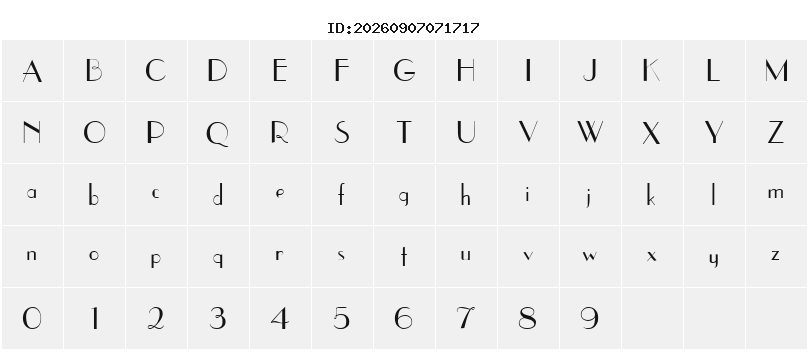
UppEa Preview
• Font Name: UppEa
• Font ID: Altsys Metamorphosis:UppEa Regular
• Full Font Name: UppEa Regular
• Version: Altsys Metamorphosis:3/6/92
• PostScript Name: UppEa Regular
• Character Count: 168
• Copyright: UpperEastSide Type 1 PostScript font ︖ 1990 by David Rakowski. Alle Rechte Vorhalten.
About UppEa.ttf
UppEa.ttf is a modern, elegant sans-serif font designed for ultimate readability and visual harmony. Perfect for branding, headlines, web design, and print materials.